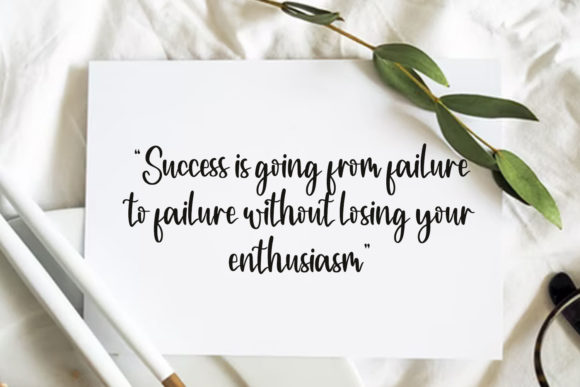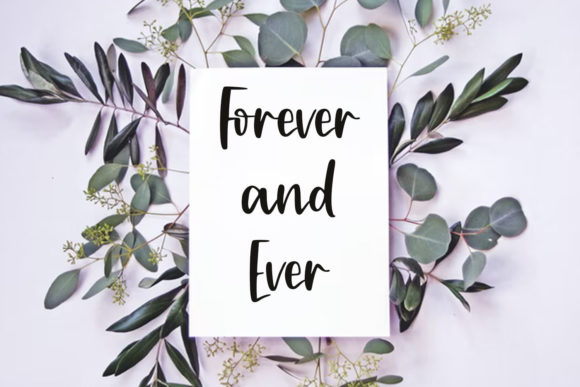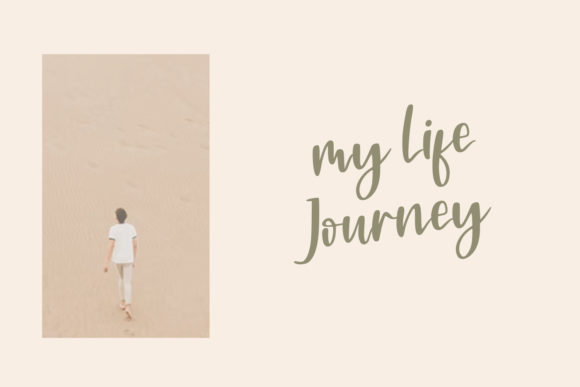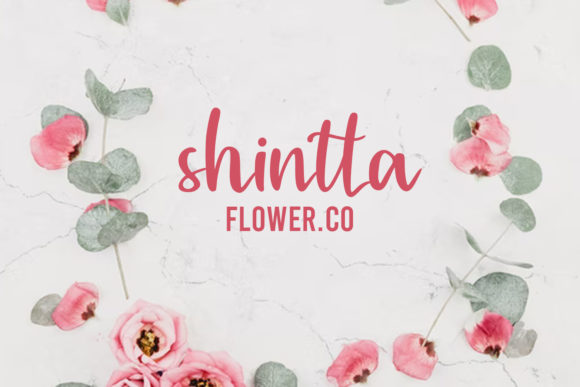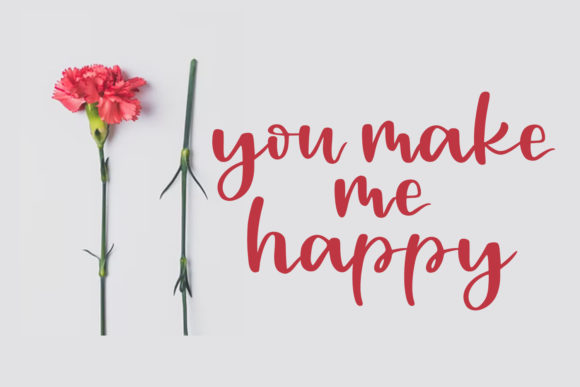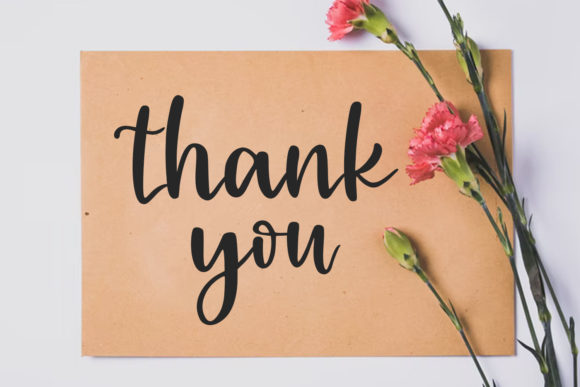
Introduction to Forever Love Font
As designers, we’ve all been there – staring at a blank canvas, trying to capture the essence of a moment, a feeling, or a memory. For me, it was a wedding proposal that sparked the idea to write about the Forever Love Font. The way the words “Forever Love” flowed effortlessly on the invitation, setting the tone for the rest of the wedding design, was truly magical. It’s moments like these that remind us of the power of typography in storytelling.
The Forever Love Font is a beautiful and refined script font that exudes elegance and sophistication. With its modern look and feel, it’s no wonder it’s become a go-to design resource for creatives around the world. Whether you’re working on a free download project or a high-quality design for a client, this font is sure to elevate your work. Its transparent background and high-quality design make it perfect for any creative project, from logos to social media posts.
Key Features of Forever Love Font
- Unique, Hand-Drawn Design: The Forever Love Font features a beautiful, hand-drawn design that is perfect for creative projects, wedding invitations, and other romantic themes.
- Perfect for Romantic Themes: The Forever Love Font is ideal for creative projects, including wedding invitations, love letters, and other romantic themes.
Honest Review: Forever Love Font
As a designer, I’m always on the lookout for high-quality design resources to elevate my creative projects. The Forever Love Font caught my eye, and I was excited to give it a try.
Here’s what I love about this font: ✨ It’s free to download, making it a great addition to any design project. ✨ The transparent background option is super convenient for layered designs. ✨ The font itself is high-quality, with beautiful, elegant lines that are perfect for romantic and whimsical projects.
Some of my favorite features of the Forever Love Font include:
- High-quality, intricate details
However, I did encounter a few limitations: ⚠️ The font is only available in a few weights, which may limit its versatility. ⚠️ The download process could be smoother – I experienced a few glitches along the way.
Overall, I’m impressed with the Forever Love Font, and I would recommend it to designers looking for a beautiful, high-quality font for their creative projects. Just be aware of the potential limitations, and you’ll be all set for a successful design journey!
The Forever Love Font is perfect for a variety of creative projects, including wedding invitations, birthday cards, and Valentine’s Day cards. It’s also great for designing presentations, documents, and social media graphics. With its high-quality design and transparent background, the Forever Love Font is a versatile design resource that can be used in a variety of contexts.